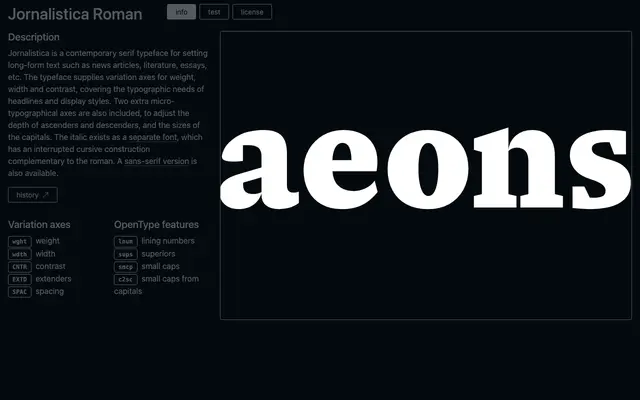
Jornalistica Roman
A variable serif designed for long-form editorial text, with axes covering weight, width, contrast, extenders and spacing.
Built for news articles, literature and essays, this contemporary serif offers five variation axes: weight, width, contrast, extender depth and spacing. The range of axes means a single font file can serve both body copy and display headlines without switching families. A complementary italic with interrupted cursive construction and a separate sans-serif version are also available.
A contemporary text serif with variable axes for weight, width and contrast, designed for long-form editorial use such as news and literary typography.